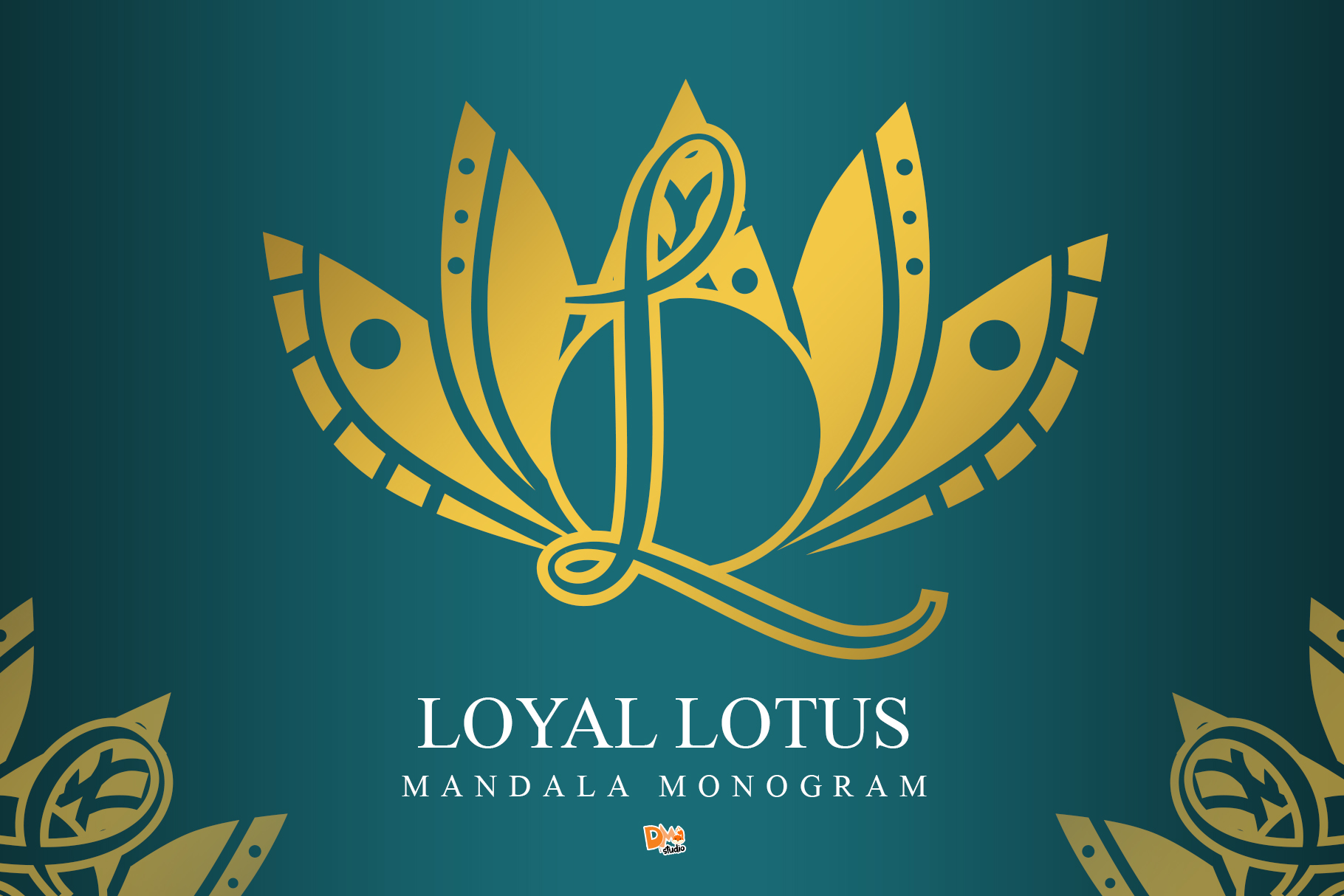
Loyal Lotus Mandala Monogram
Loyal Lotus Mandala Monogram – Elegant & Serene Mandala Font
Loyal Lotus Mandala Monogram is a graceful and detailed monogram font that blends the symbolic strength of the lotus flower with the intricate charm of mandala art. Ideal for spiritual designs, luxury branding, wedding invitations, personalized gifts, and boutique packaging, this ornamental typeface brings harmony and elegance to your creative work.
• Mandala Lotus Elegance: Each character features refined, hand-drawn mandala lotus motifs.
• Delicate yet Powerful Look: Conveys calmness, strength, and a refined touch.